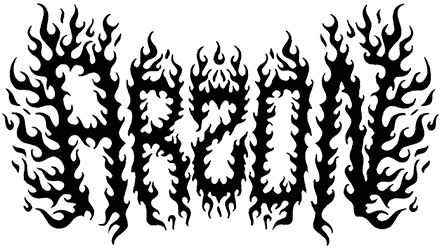
Arzon Fire font
Add some flame to your creative layout and create cool typography for it with this fire font. The gothic and powerful mood of the characters will mesmerize your viewers, but it doesn’t support lowercase letters, and its numbers and punctuation marks have a basic form. Give it a shot and set the Arzon Fire font on your intended project, namely a metal music concert, and become unforgettable.